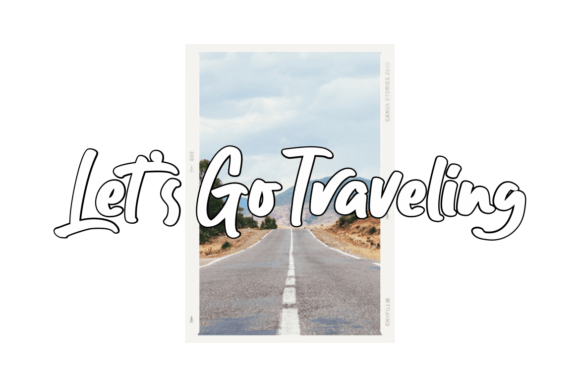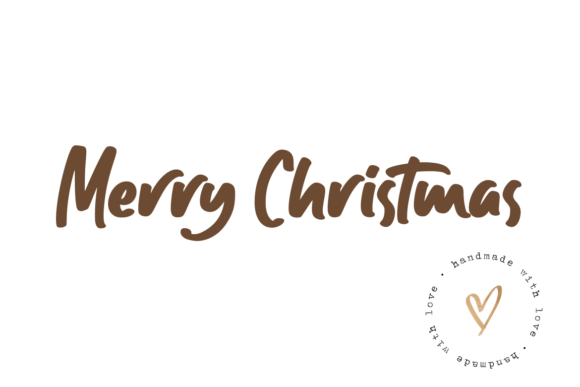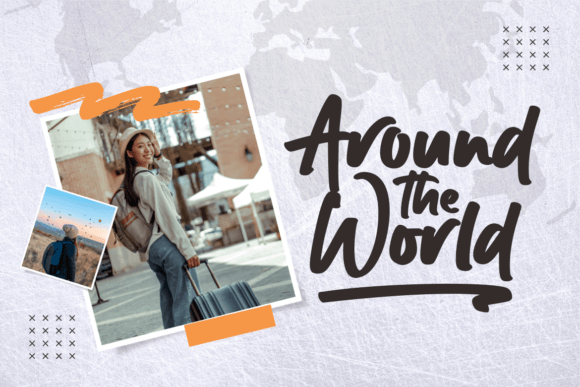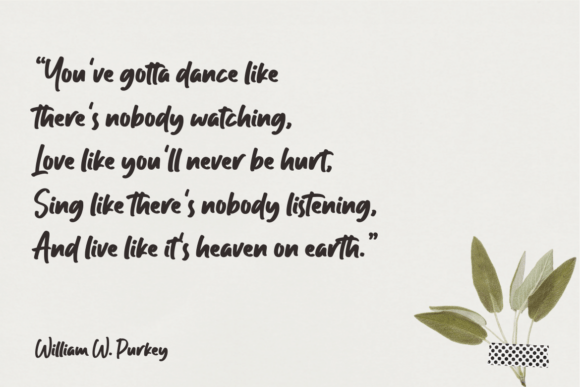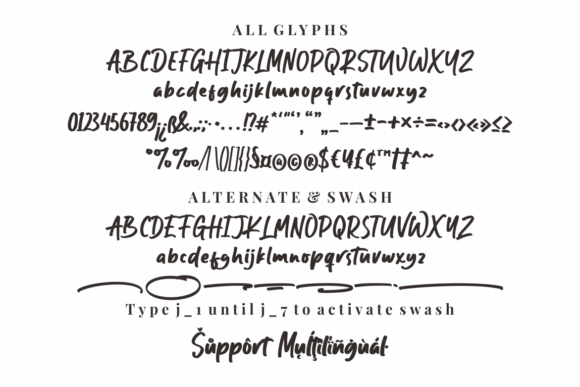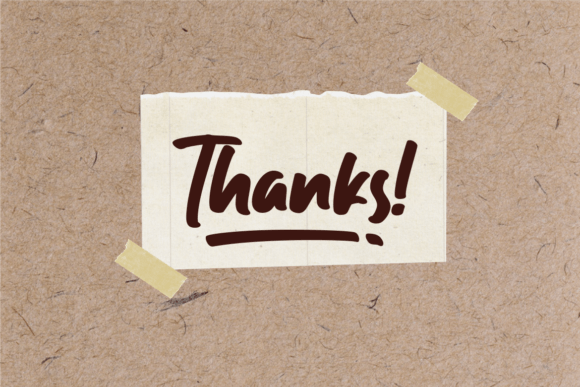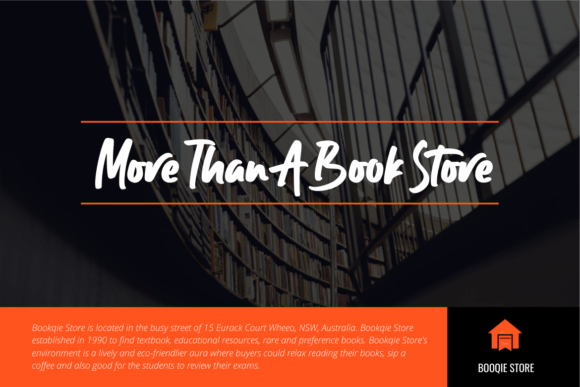
Daily Notes Font
The Daily Notes Font Download is a simple handwritten script designed to bring a festive and romantic feel to your creative work. With a warm and cheerful handwritten style, this typeface is especially popular for holiday projects. Because it is PUA encoded, you can easily access all glyphs, ligatures, and swashes, making it highly versatile for both personal and professional use.
A Simple Handwritten Script with Festive Charm
Daily Notes combines the authenticity of handwritten letters with a joyful Christmas spirit. Unlike overly complex typefaces, this Daily Notes script font feels approachable and fun, making it a wonderful choice for holiday designs. As a result, it works beautifully for projects that need personality and clarity.
Perfect for Greeting Cards and Invitations
Christmas and seasonal stationery always look better with handwritten fonts. The Daily Notes Font is ideal for festive greeting cards, party invitations, and thank you notes. Moreover, its romantic details make every design feel personal and heartfelt.
Branding and Packaging with Daily Notes Font
Typography sets the tone of your brand identity. The Daily Notes handwritten font is perfect for seasonal product packaging, boutique logos, and promotional materials. In addition, it provides a cozy and festive character that resonates with audiences during the holidays.
Posters, Headlines, and Creative Displays
Large-scale designs require fonts that are bold yet stylish. The Daily Notes Font Download works beautifully for posters, magazine titles, banners, and event flyers. Therefore, it is a versatile choice for designers looking to make seasonal projects stand out.
In today’s digital-first environment, fonts help capture attention online. The Daily Notes typeface integrates seamlessly into Instagram posts, YouTube thumbnails, Pinterest graphics, and blogs. Its festive handwritten style ensures your digital designs feel warm and engaging.
Why Designers Choose Daily Notes Typeface
Designers love fonts that remain clear while offering creativity. Many handwritten scripts lose legibility at smaller sizes, but the Daily Notes handwritten script maintains readability while keeping its festive charm. This makes it reliable for holiday marketing and personal projects alike.
Add a Festive Touch to Your Projects Today
If you want a handwritten script that feels simple, festive, and versatile, the Daily Notes Font Download is the right choice. From greeting cards and invitations to posters, branding, and digital content, it adds holiday spirit and romance to every design. Finally, download Daily Notes today and make your projects sparkle with Christmas cheer.